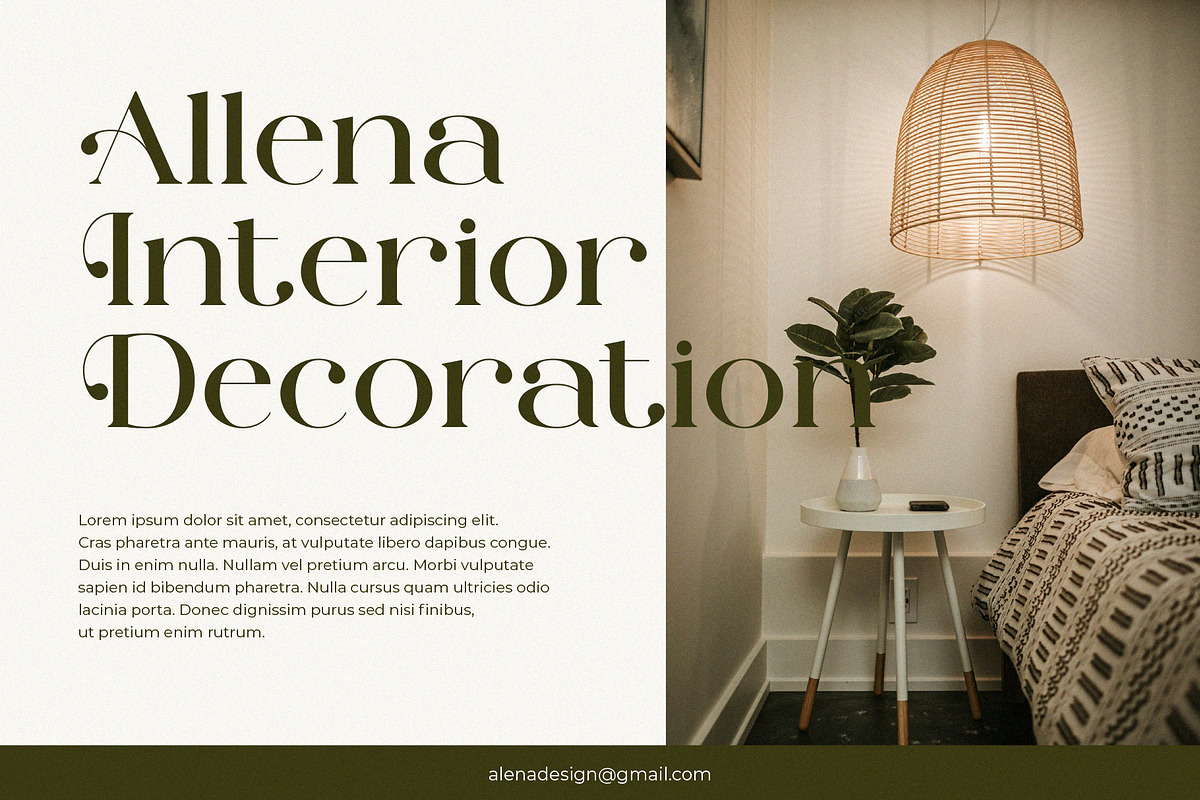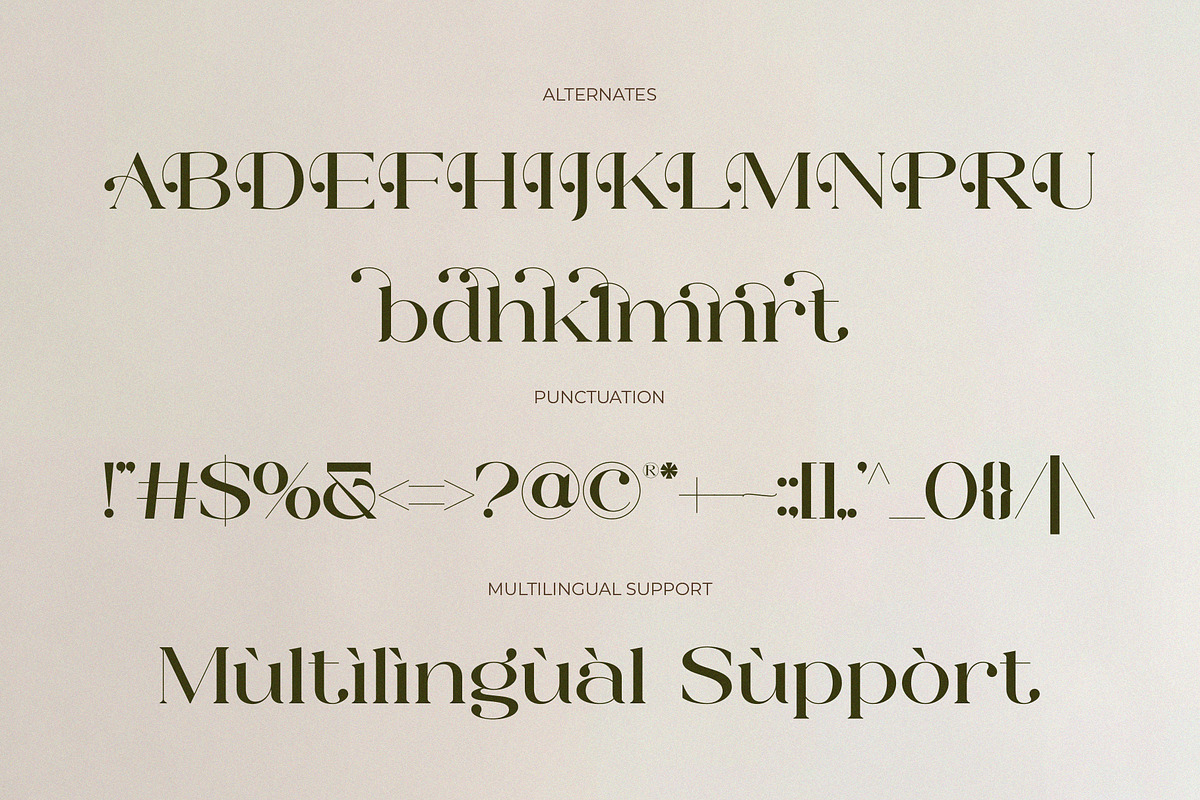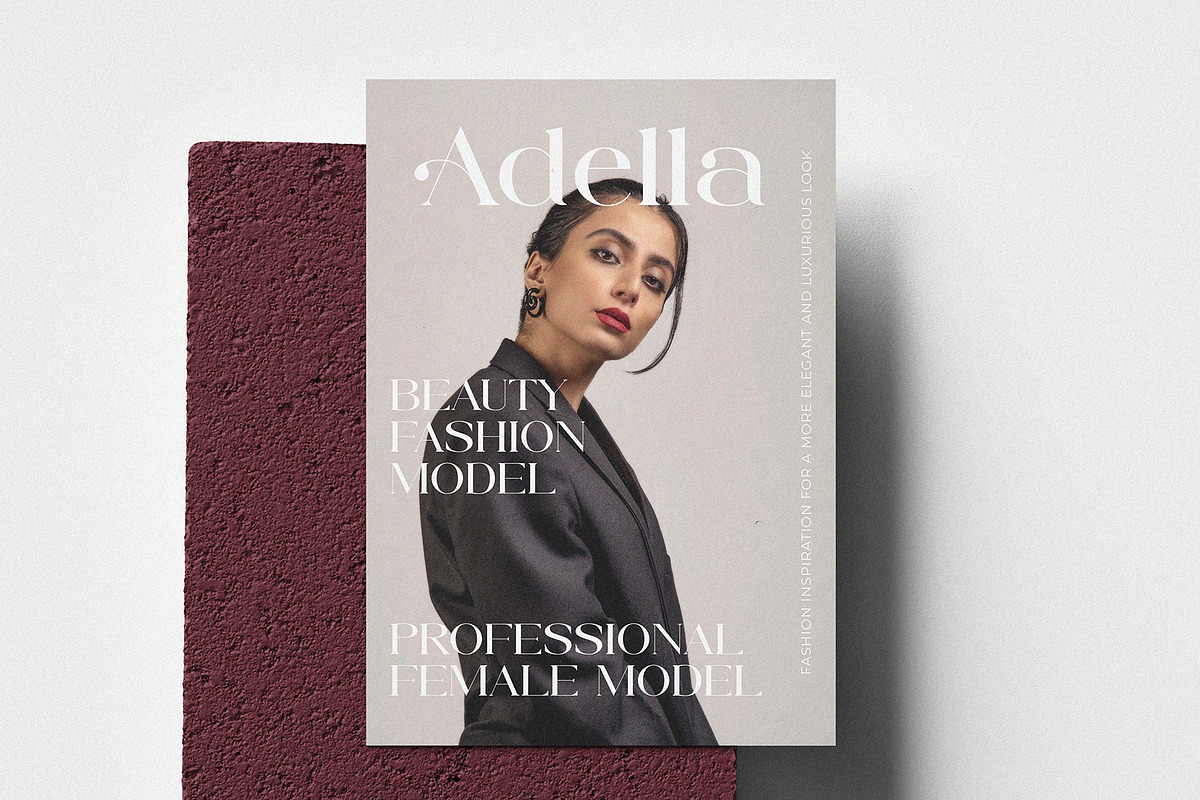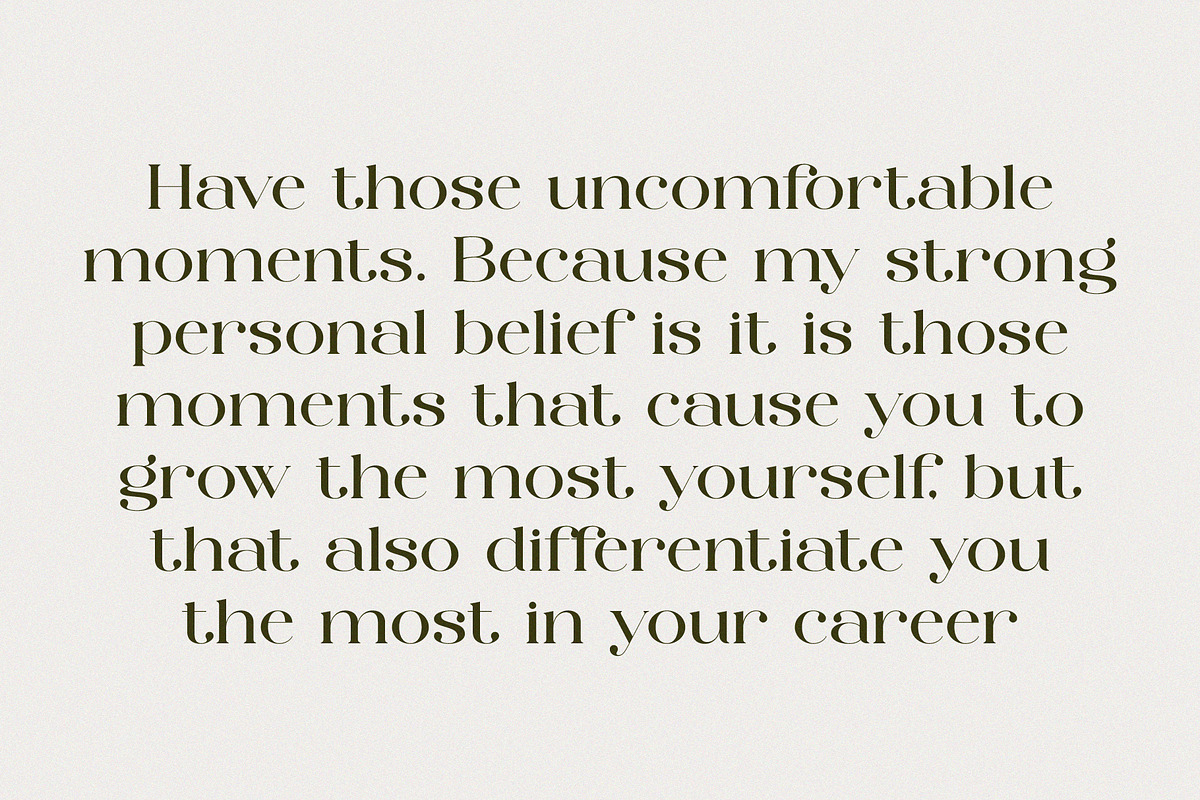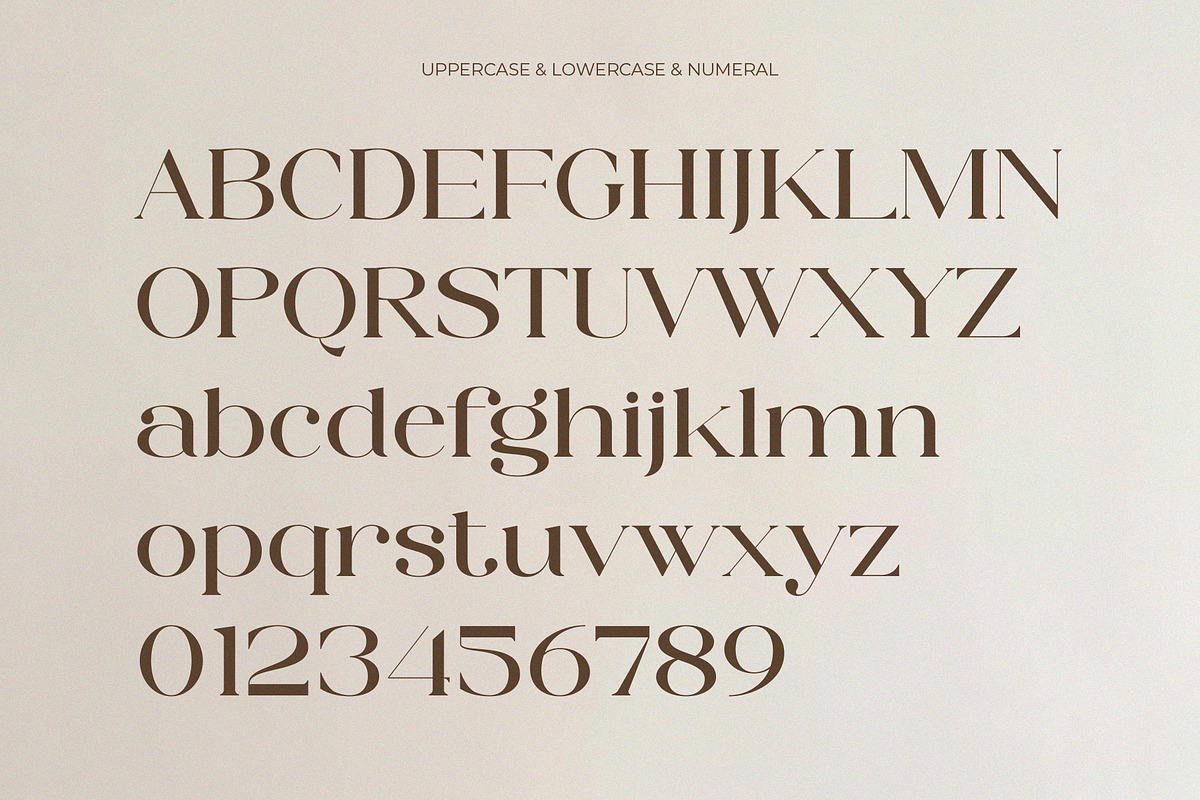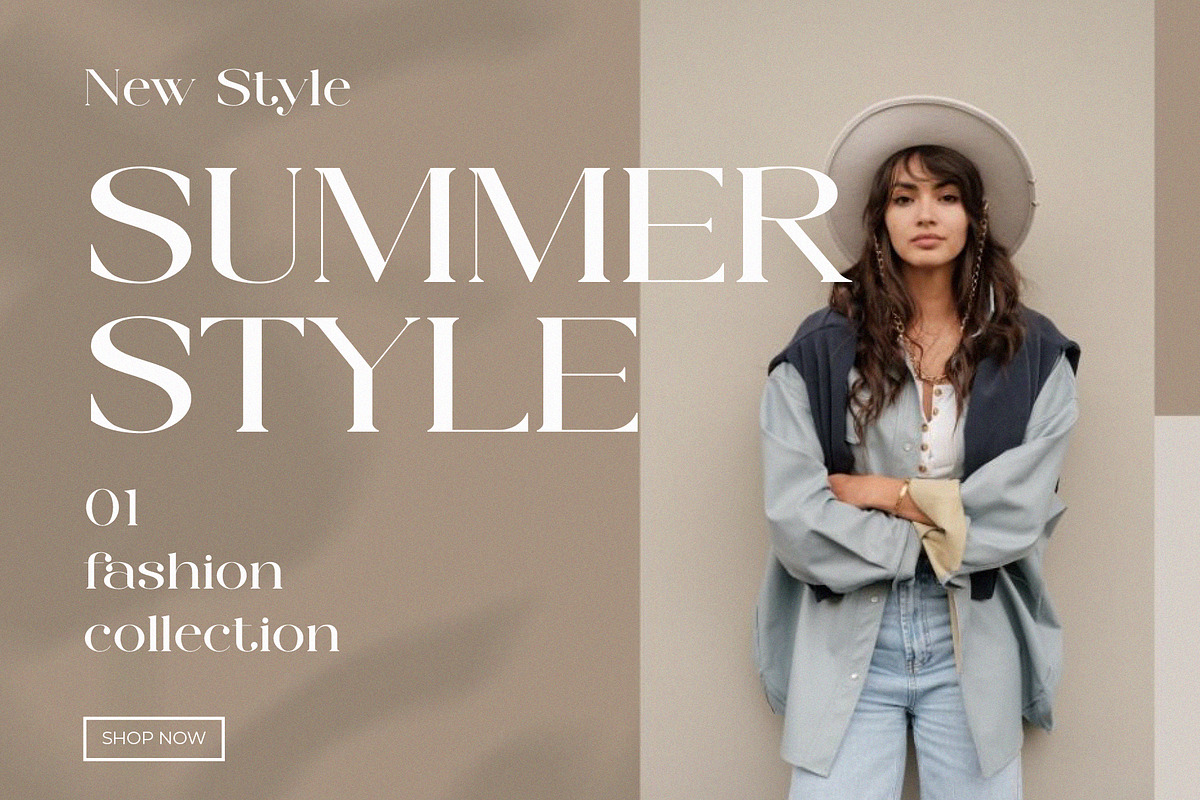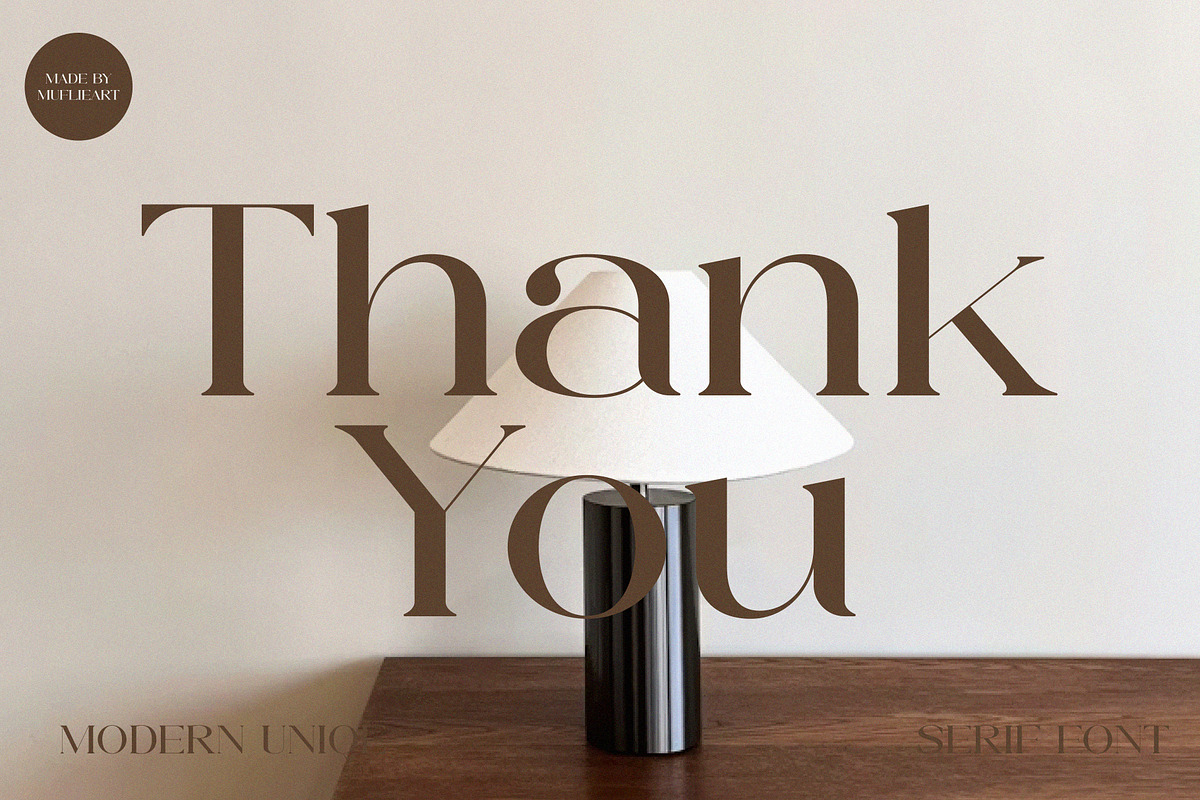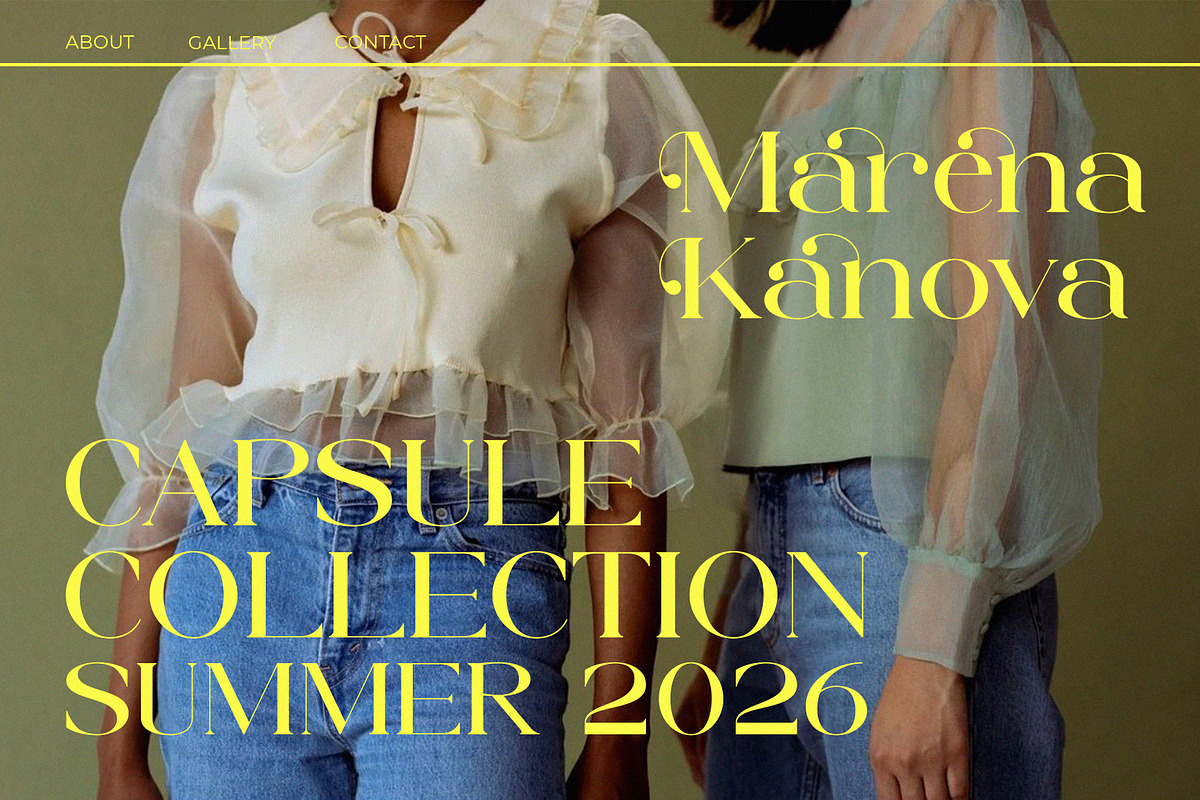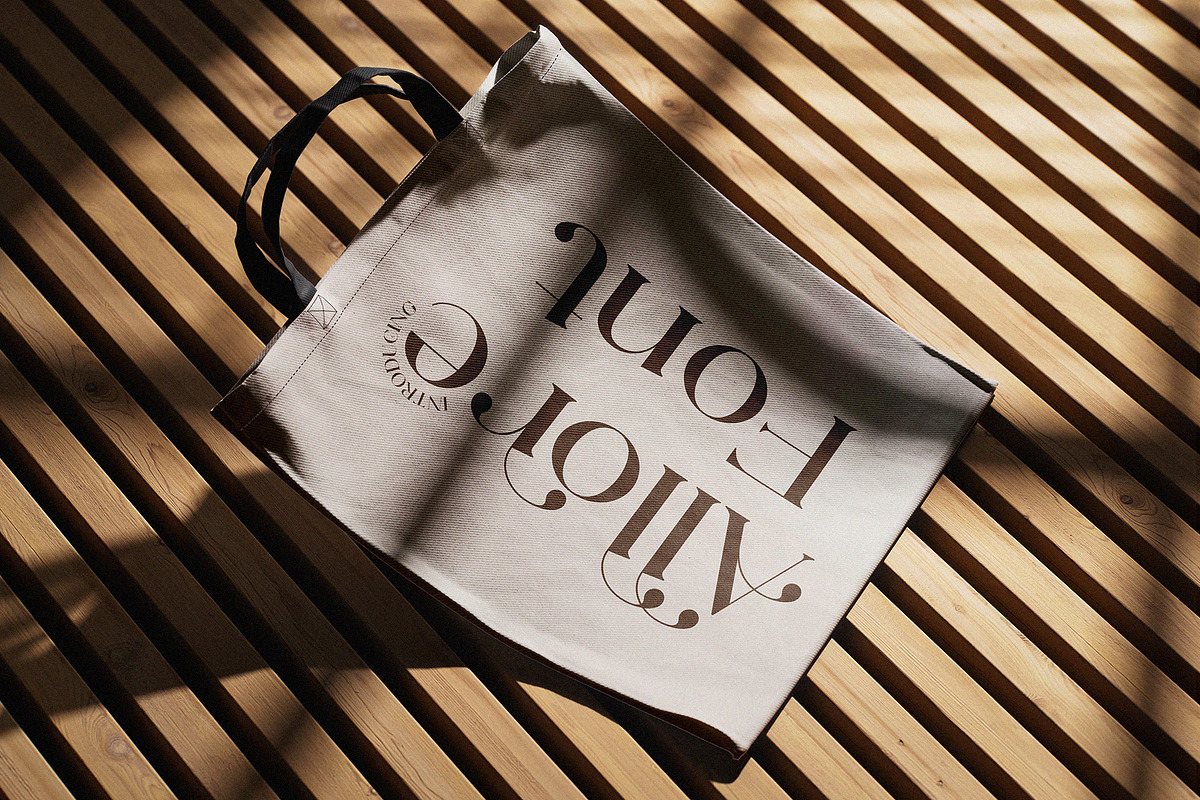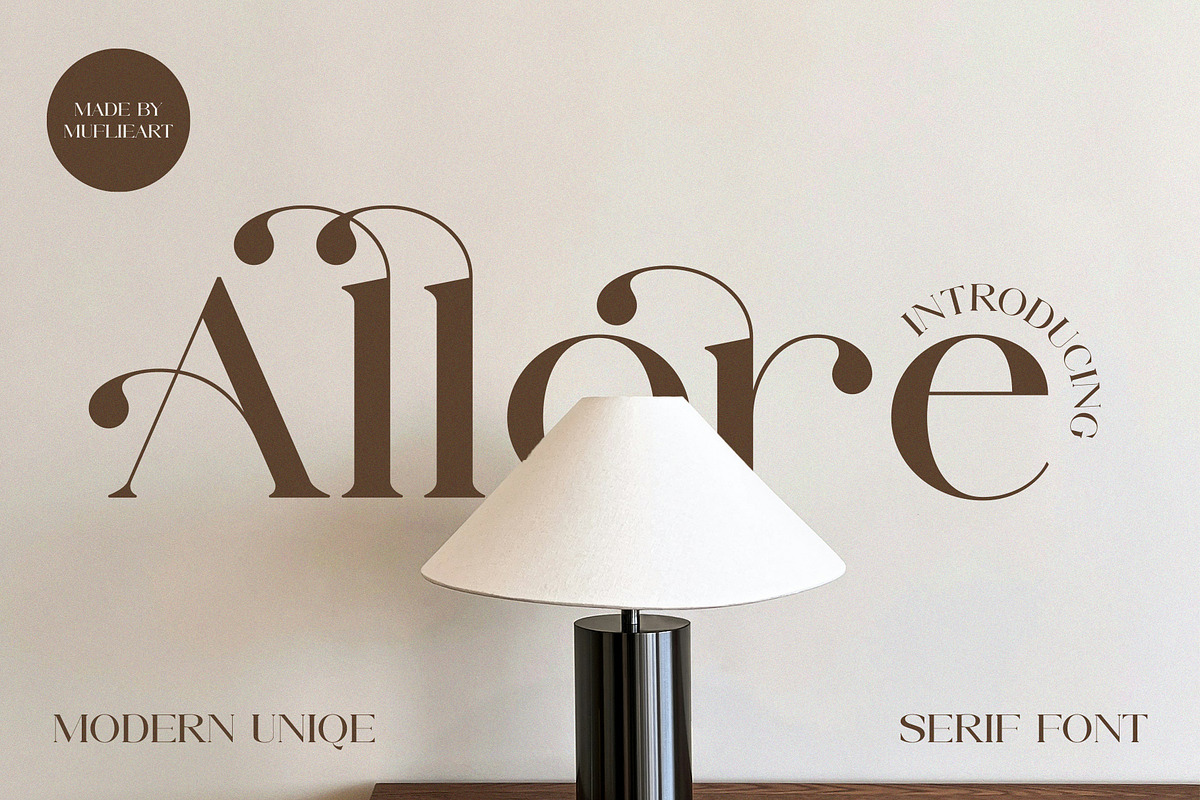
Allore - Modern Unique Serif
Introducing Allore the elegant, beautiful, and modern Serif. With its modern and minimalist look, Allore brings a luxurious, classy, and clean style to your projects such as websites, modern logos, brand identities, social media quotes, wedding stationery, magazines, and more!
Allore features unique and classy capital letters A to Z and also comes with unique alternates and ligatures making Allore a beautiful font that can be customized for various projects and jobs you want.
Allore is perfect for: logos, brands, wedding invitations, business cards, greeting cards, posters, magazines, social media, agenda prints, and websites.
- Uppercase and lowercase letters
- Multilingual Characters